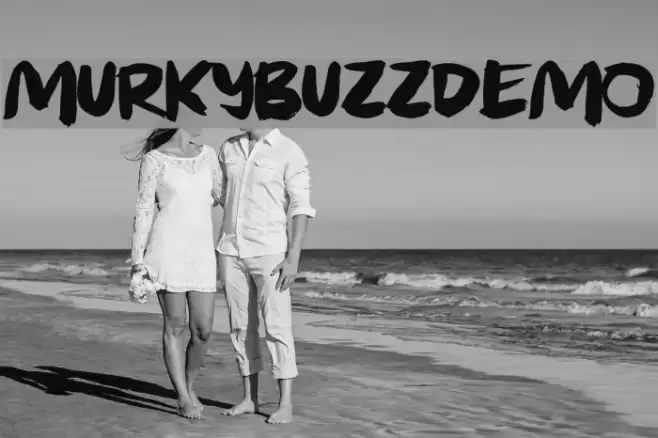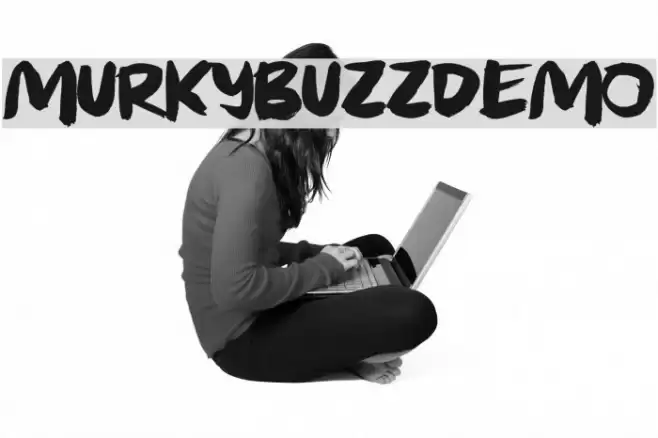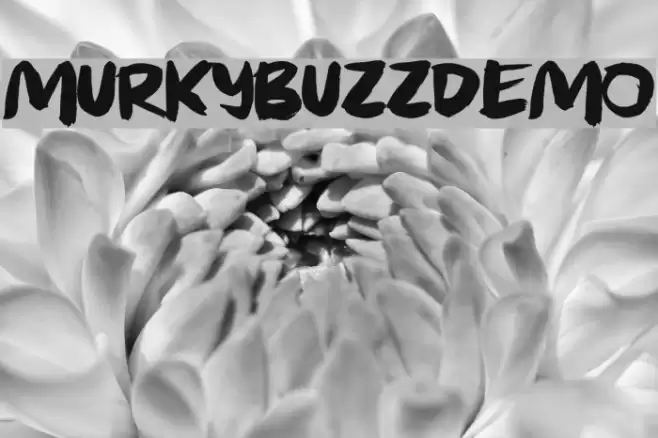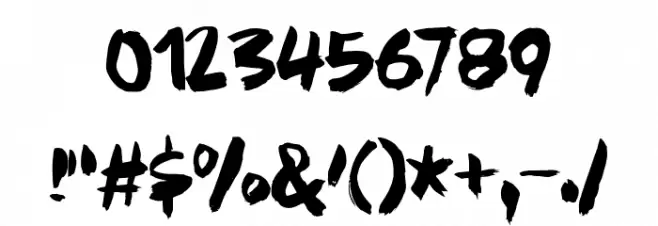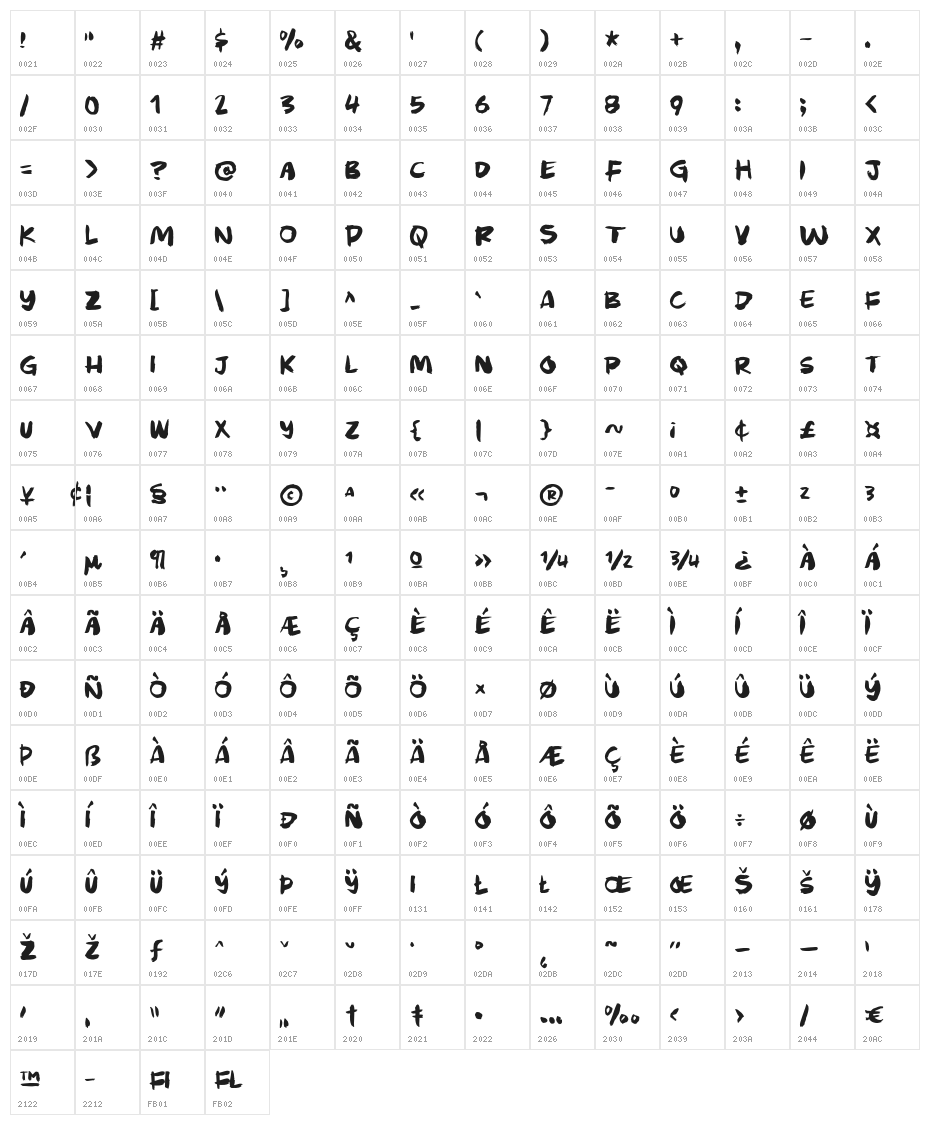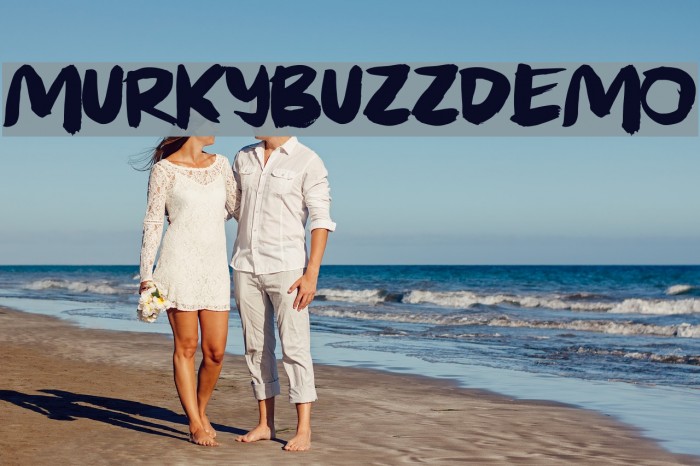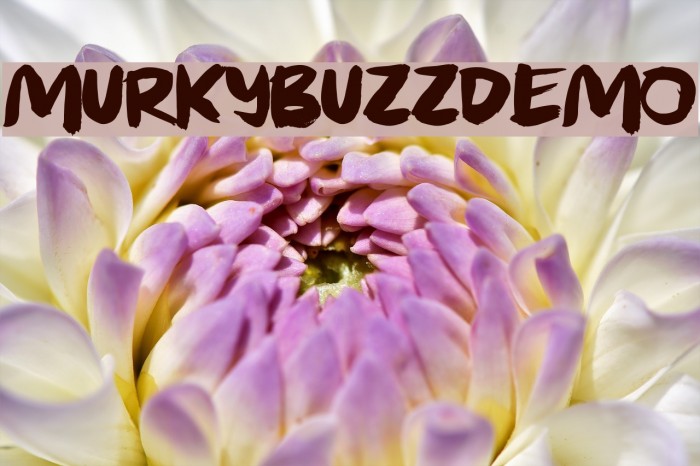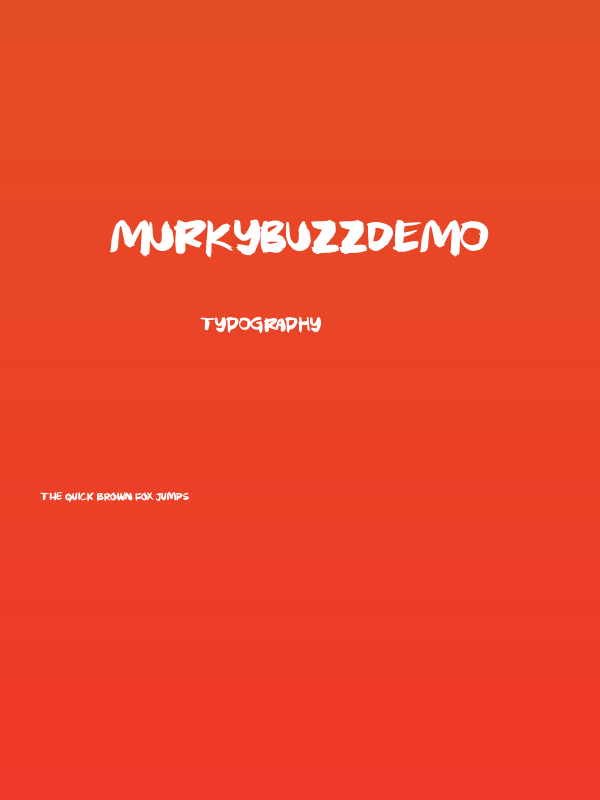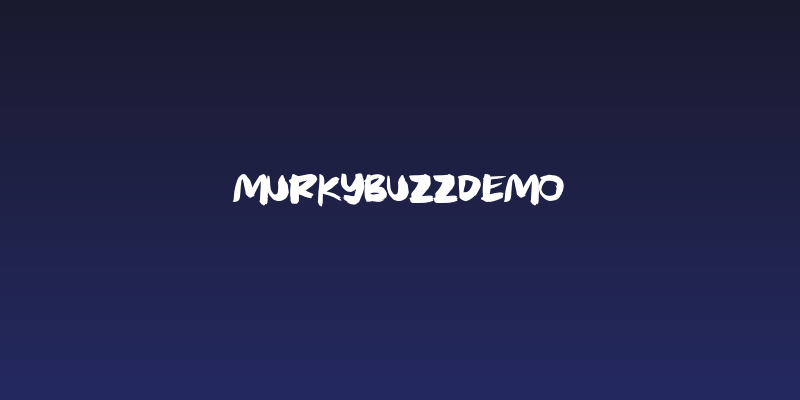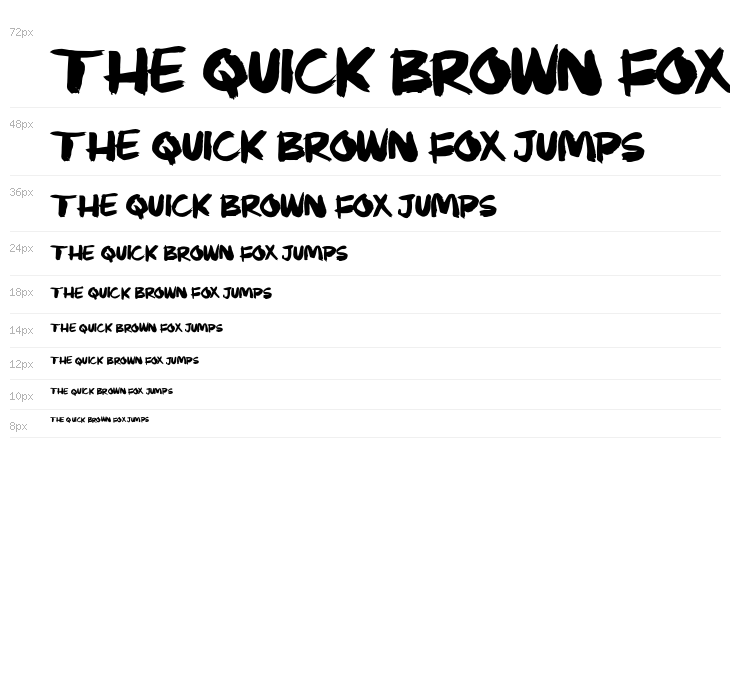
MurkyBuzzDEMO Font
MurkyBuzzDEMO Description
This font features a bold and expressive brush style, characterized by its dynamic and energetic strokes. The letters have a hand-painted appearance, with varying thickness that adds a sense of movement and fluidity. The uppercase and lowercase letters maintain a consistent style, with a slightly rough texture that gives it an authentic, artistic feel. The numerals and special characters follow the same design principles, ensuring a cohesive look across all elements. This font is ideal for projects that require a bold and creative touch, such as posters, branding, and artistic designs.
A bold, expressive brush-style font with dynamic strokes and a hand-painted look from Script fonts.
- Proposed Projects: Ideal for posters, branding, artistic designs, and any project needing a bold, creative touch.